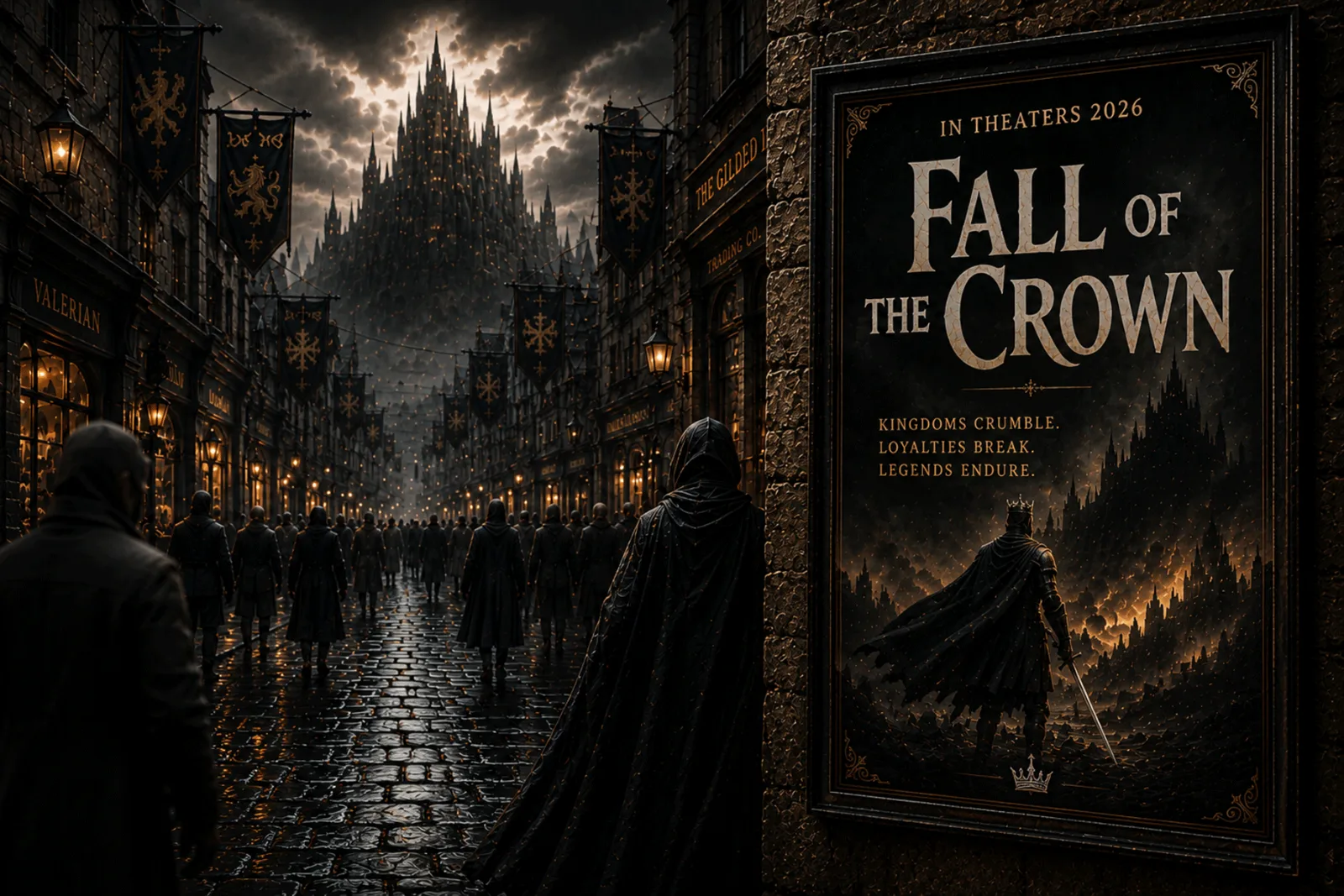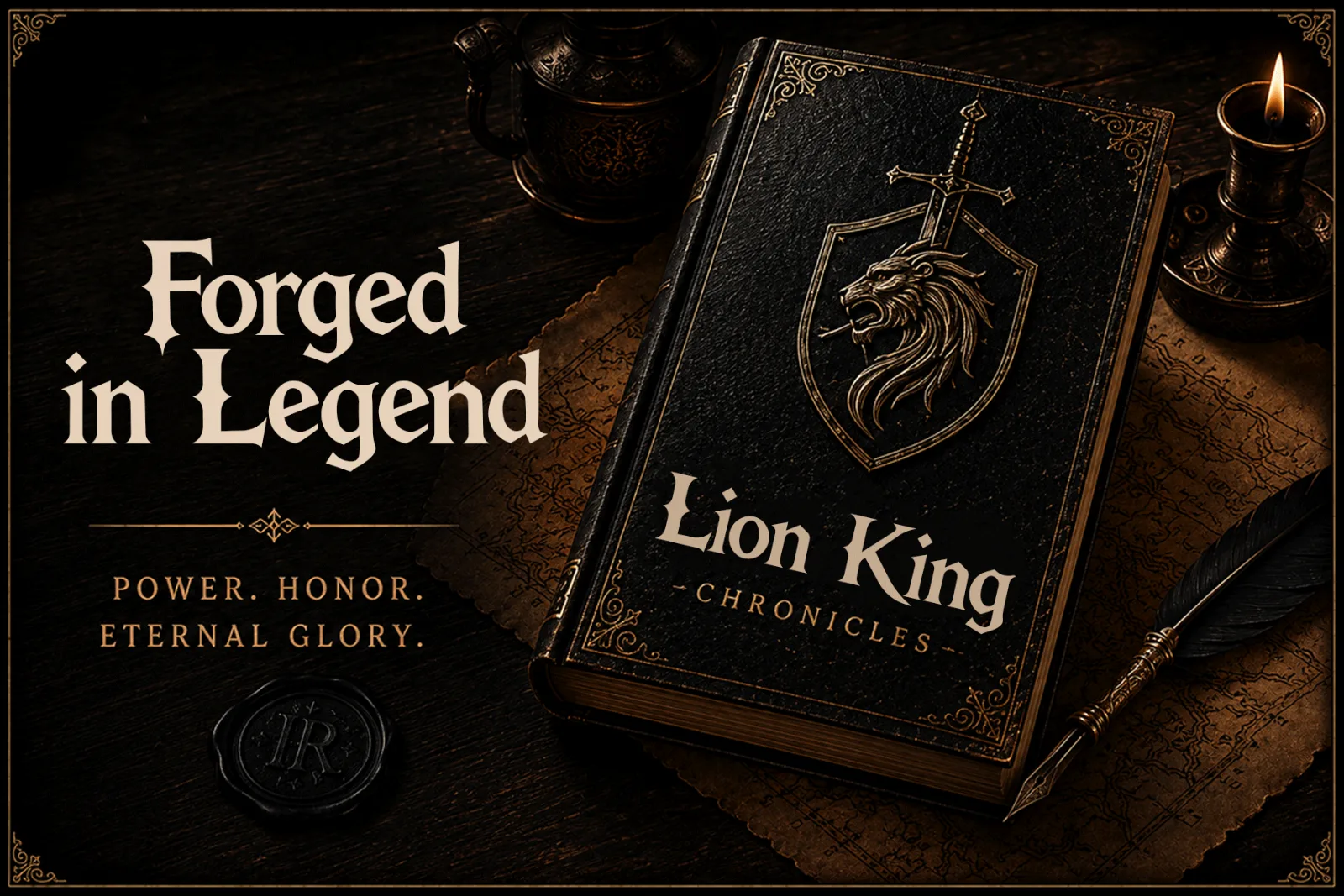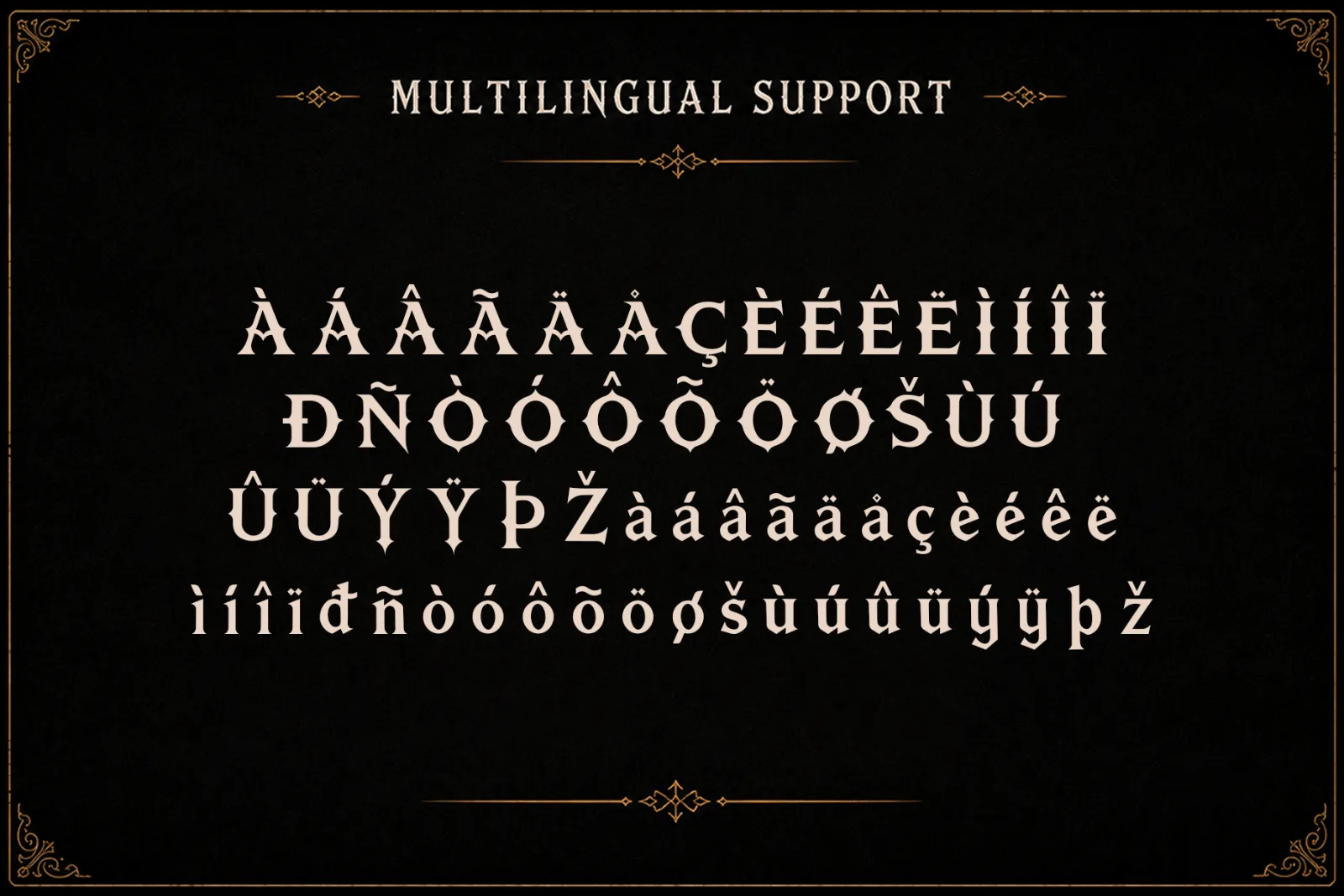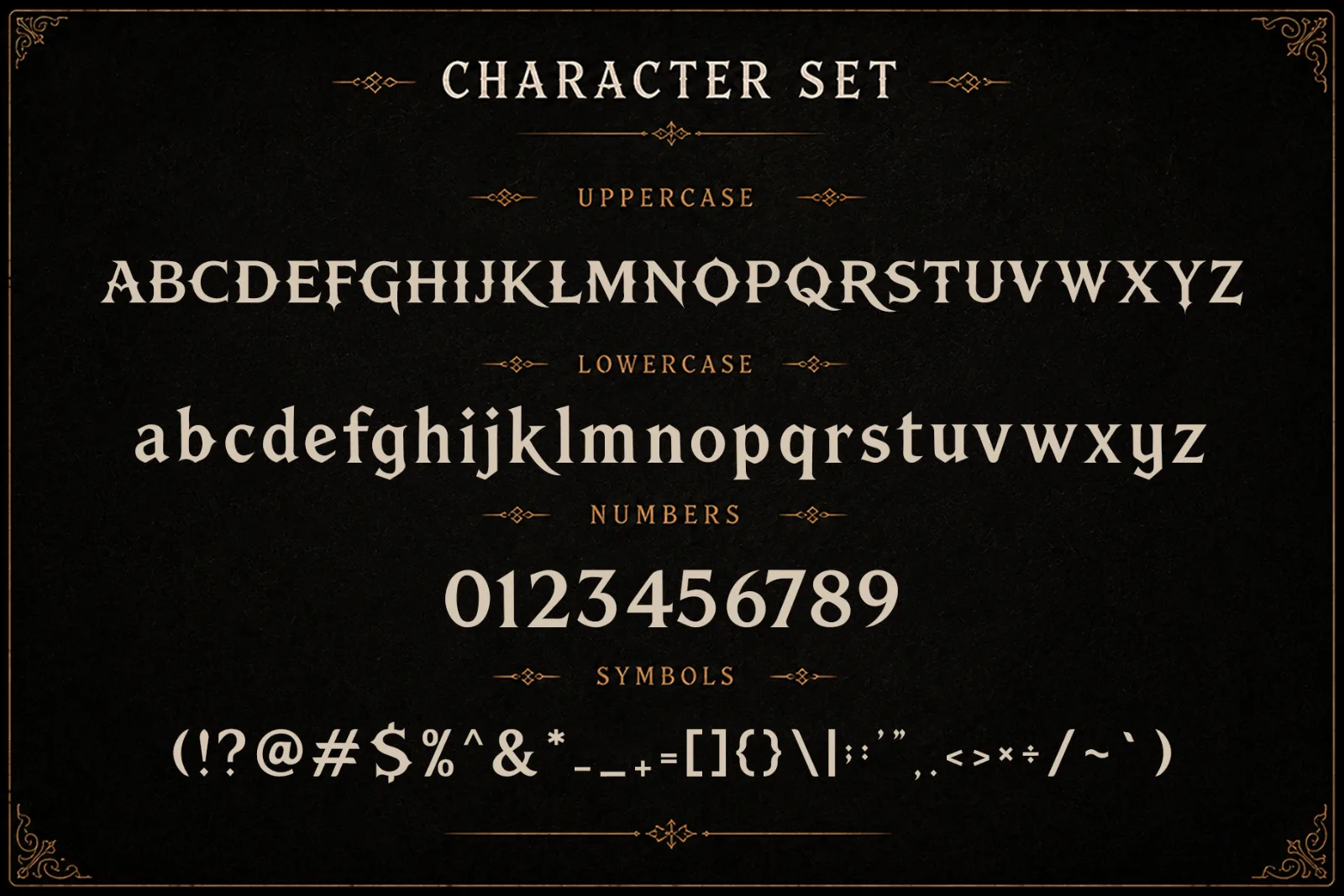
Iron Realm – Fantasy Display Serif Font
Iron Realm is a bold fantasy display serif font inspired by legendary kingdoms, medieval castles, epic battles, and heroic storytelling. Its dramatic serif forms, sharp details, and elegant proportions create a powerful cinematic look with a refined fantasy character.
Designed for high-impact typography, Iron Realm works beautifully for game titles, book covers, movie posters, fantasy branding, merchandise, and other projects that need a strong medieval atmosphere.
Perfect for:
- Fantasy Game Titles
- Book Covers
- Movie Posters
- Medieval Branding
- RPG Projects
- Epic Headlines
- Album Covers
- Merchandise
- Logo Design
- Packaging
- Editorial Design
- Fantasy Event Graphics